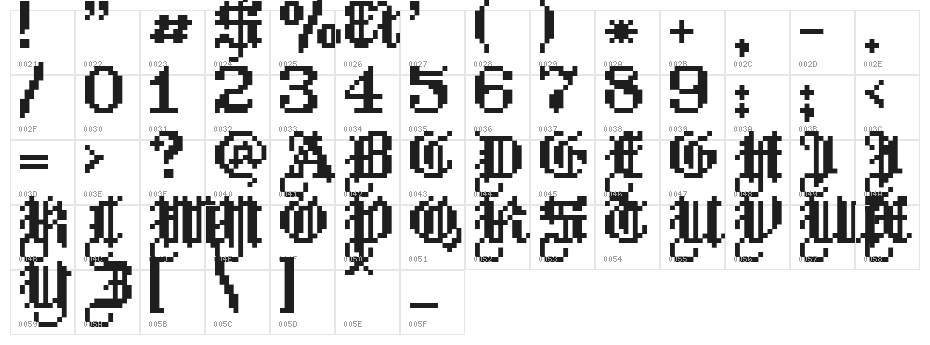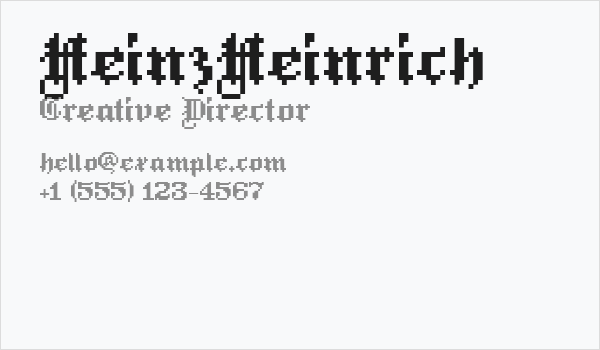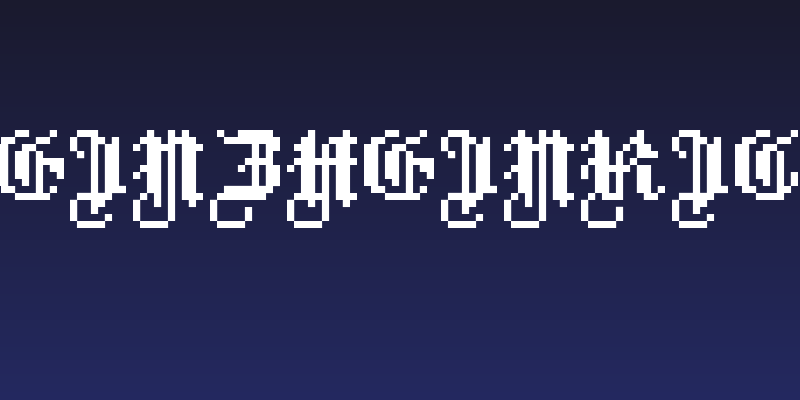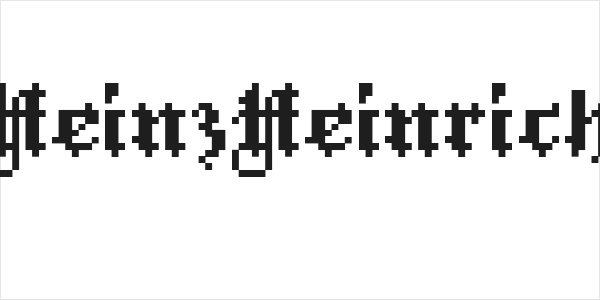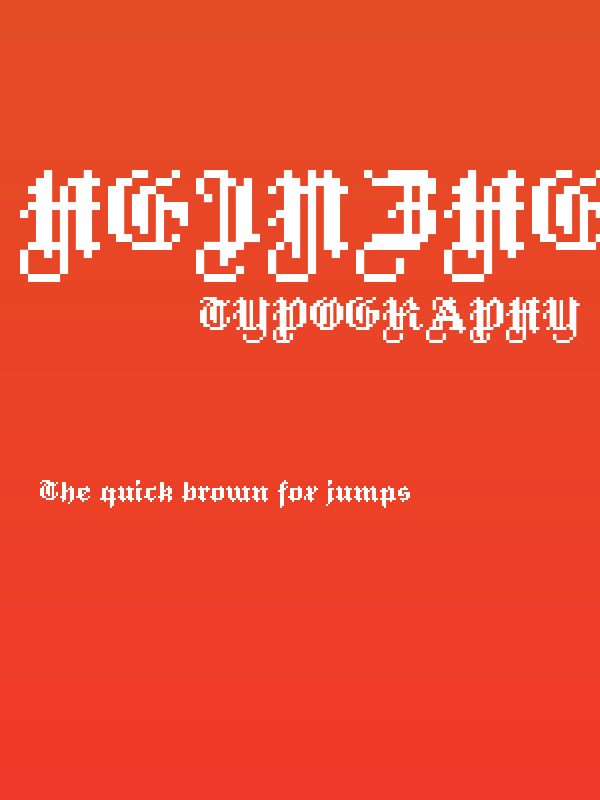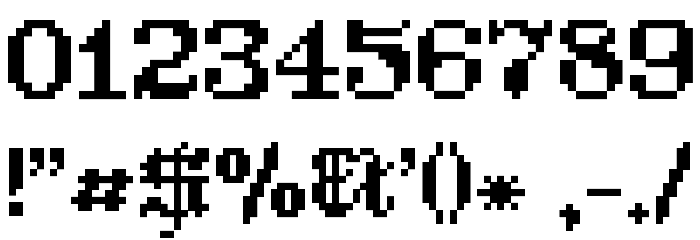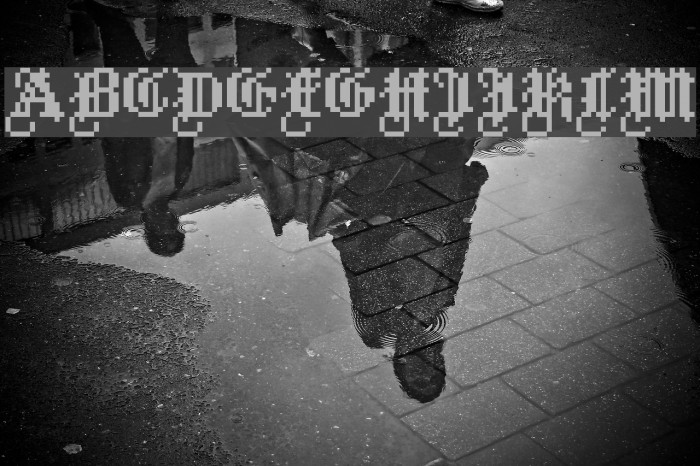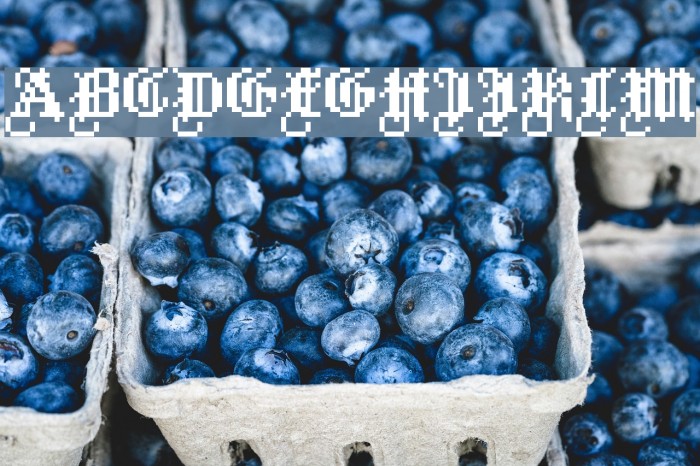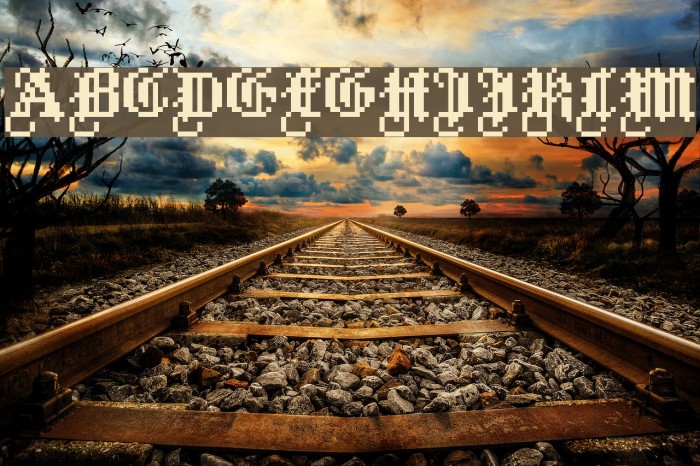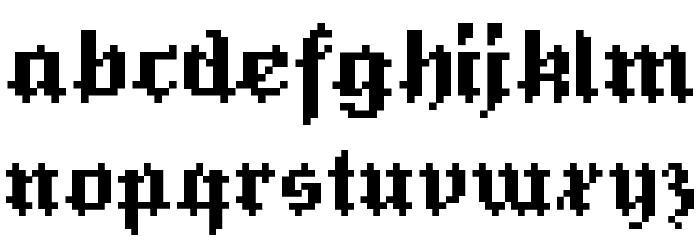
HeinzHeinrich Font
HeinzHeinrich Description
This font features a bold and intricate design reminiscent of traditional blackletter styles. Each character is crafted with sharp, angular edges and a distinct pixelated appearance, giving it a unique, vintage digital feel. The uppercase letters are tall and commanding, while the lowercase letters maintain a consistent height, ensuring readability. Numbers and special characters are equally bold, maintaining the overall aesthetic. The font's design is both decorative and functional, ideal for projects that require a touch of historical or gothic flair.
| Overall Style | Vintage |
| Use Case | Logos, Headlines, Decorative text |
| Proposed Projects | Ideal for retro video game graphics, gothic-themed posters, or any project seeking a blend of digital and historical styles. |